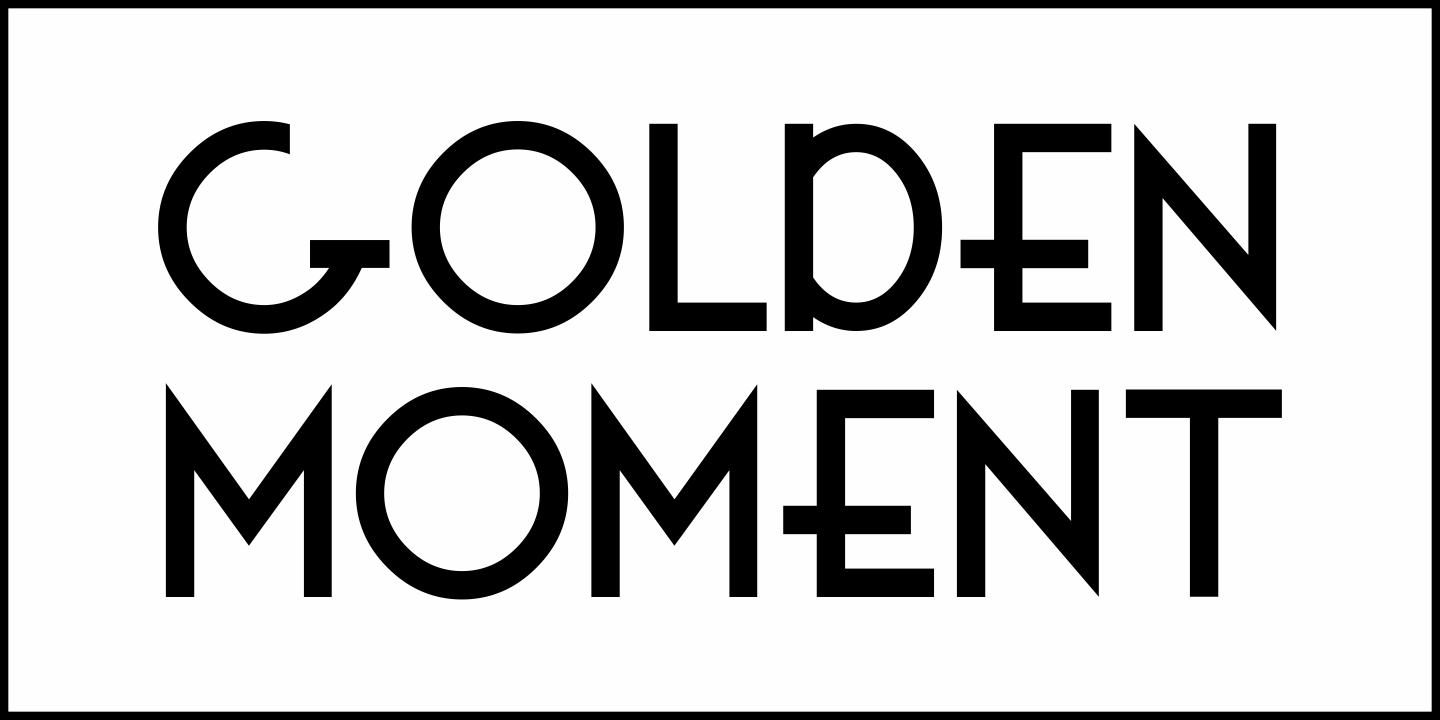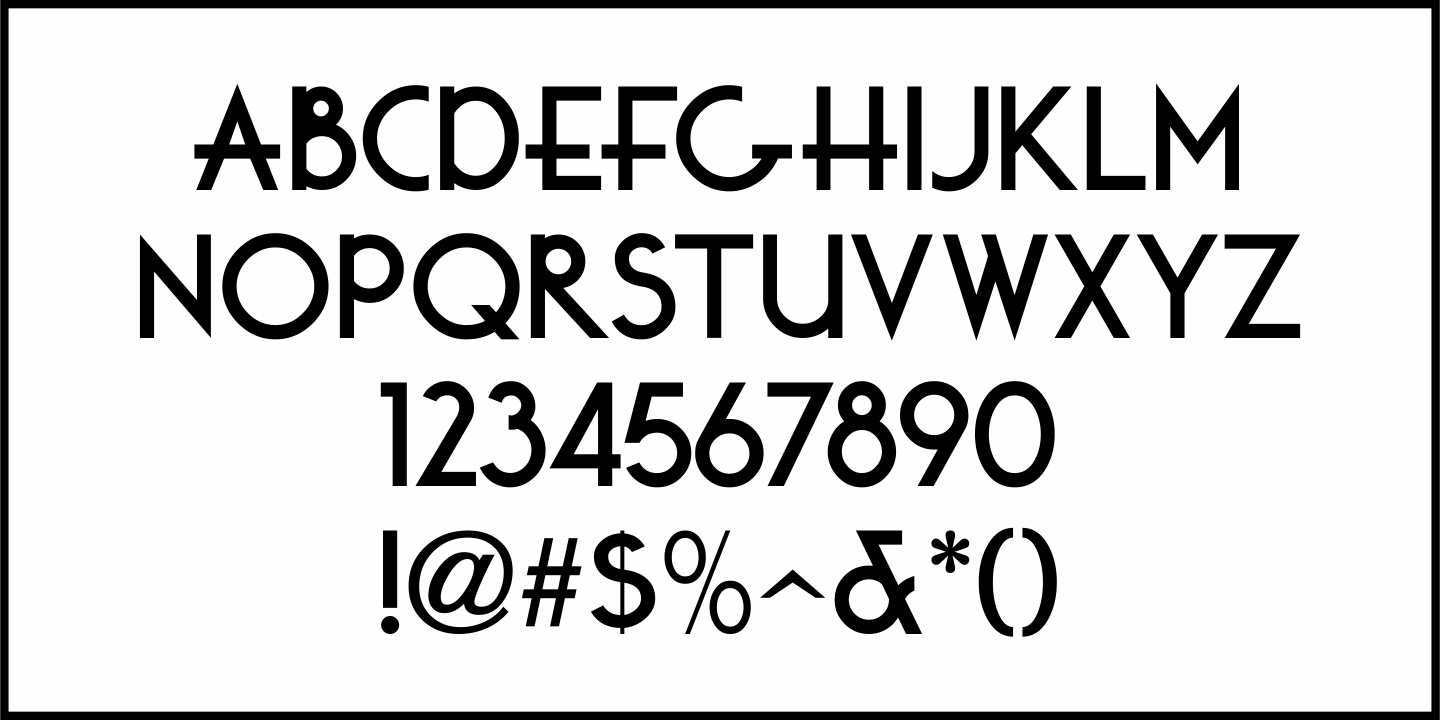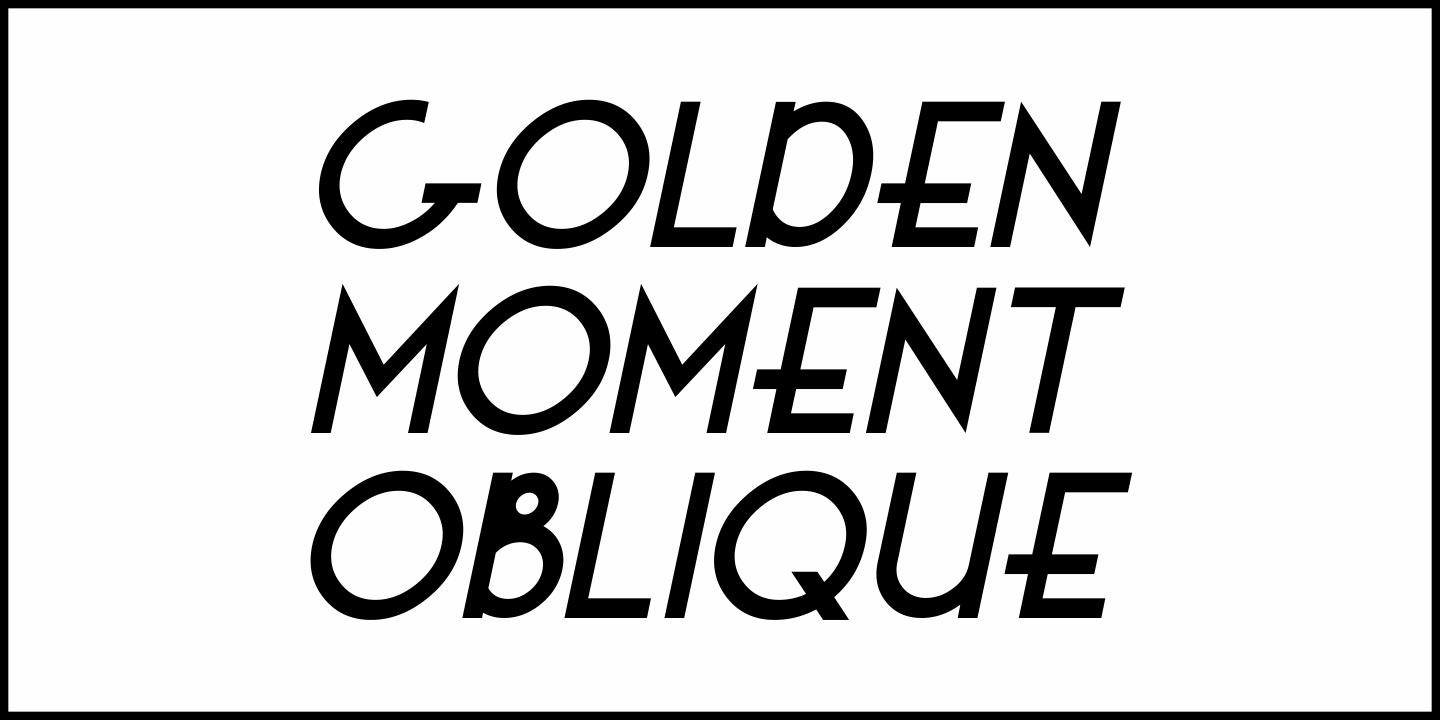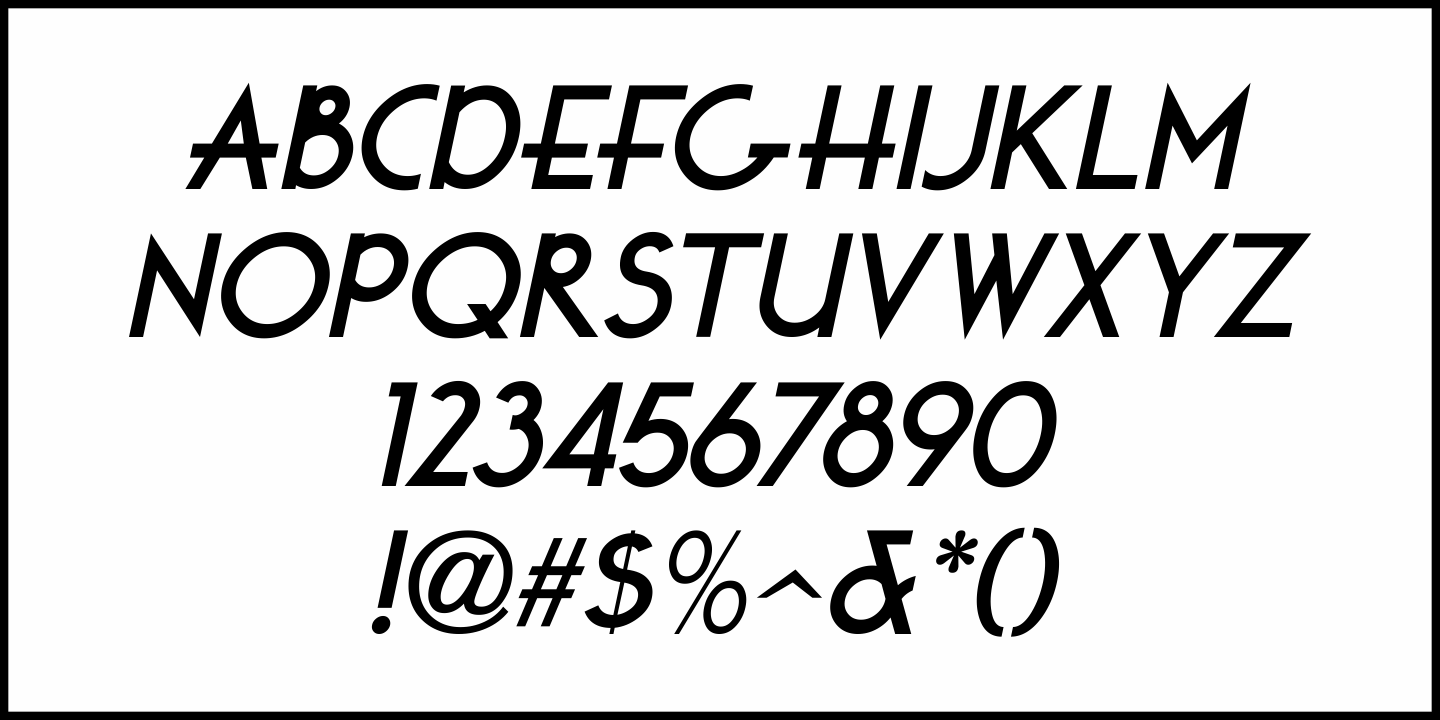
Golden Moment
The hand lettered cast credits for the 1939 film “Golden Boy” (starring Barbara Stanwyck, Adolphe Menjou, William Holden and Lee J. Cobb) was the model for Golden Moment JNL, which is available in both regular and oblique versions.
Golden Moment JNL Regular by Jeff Levine Fonts